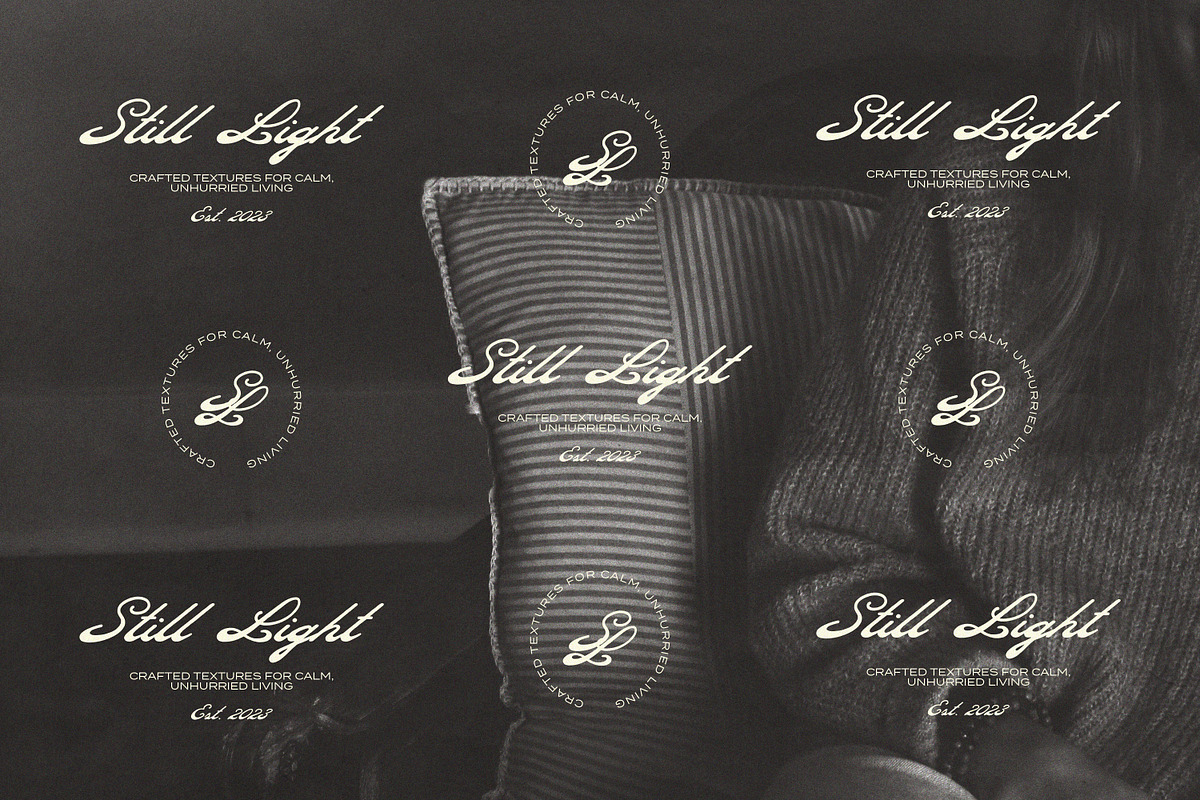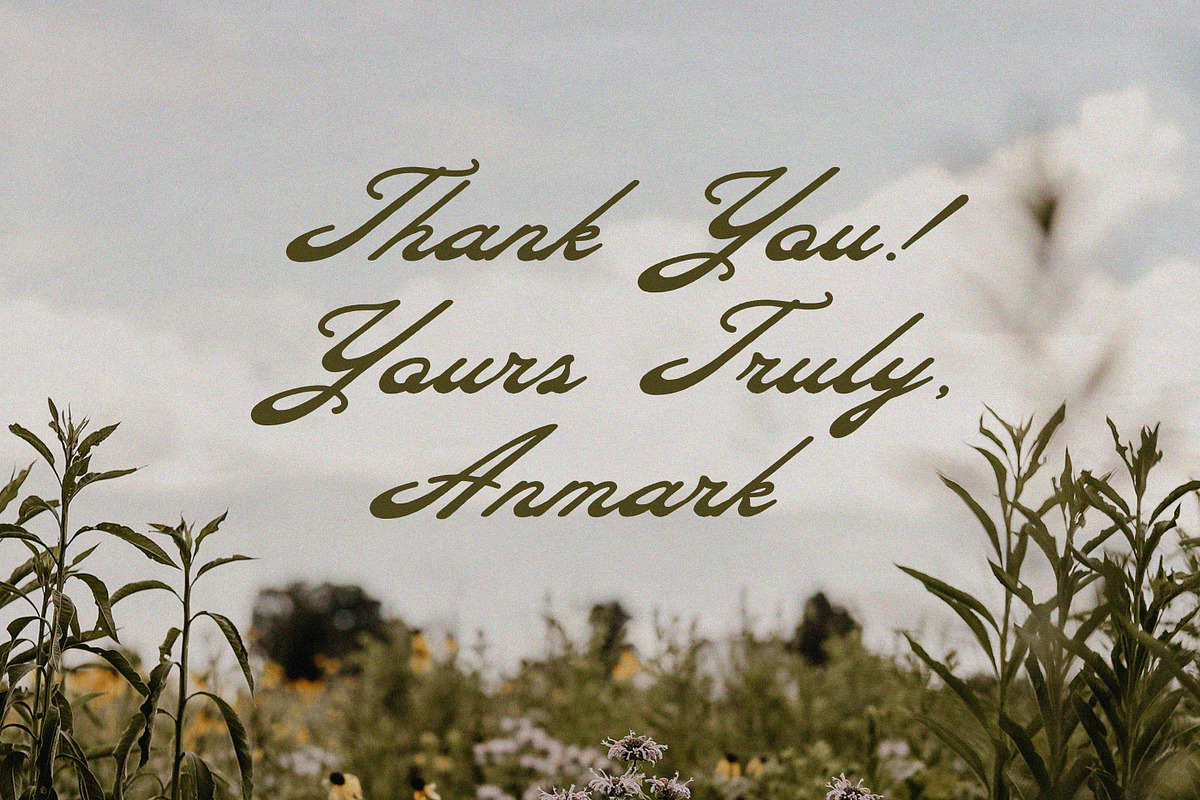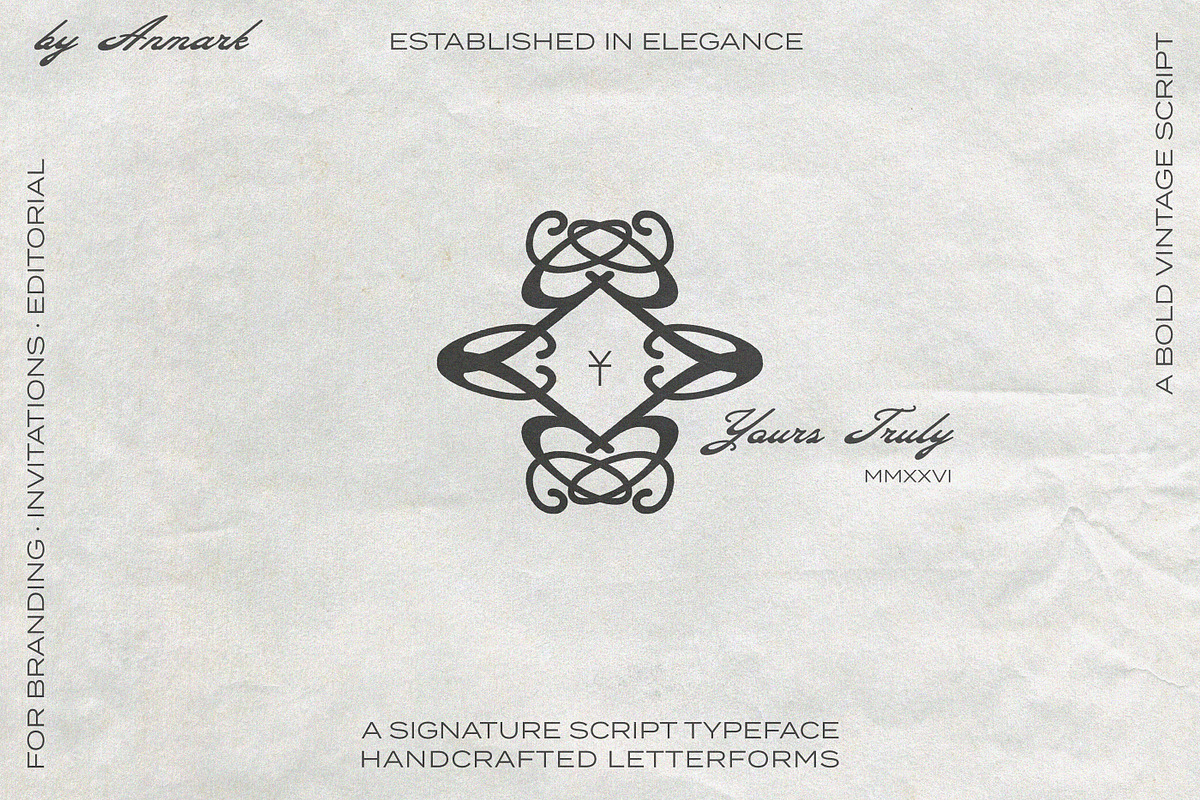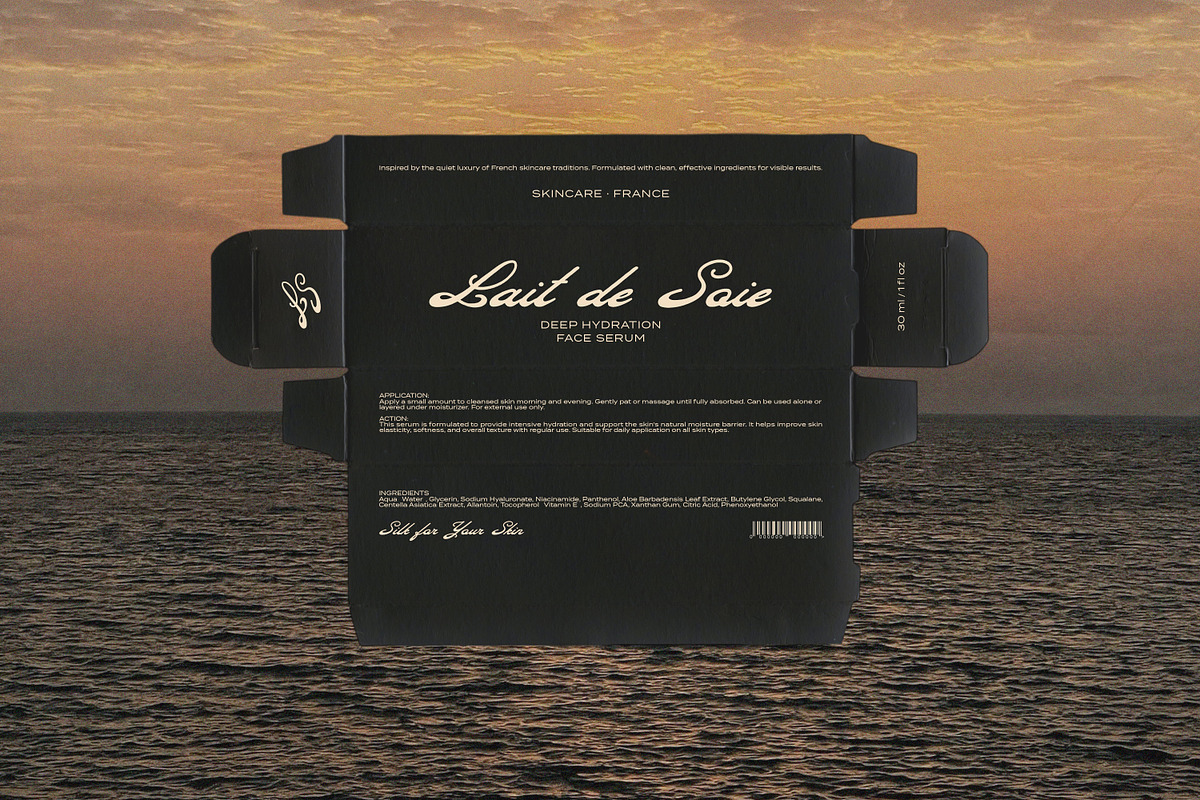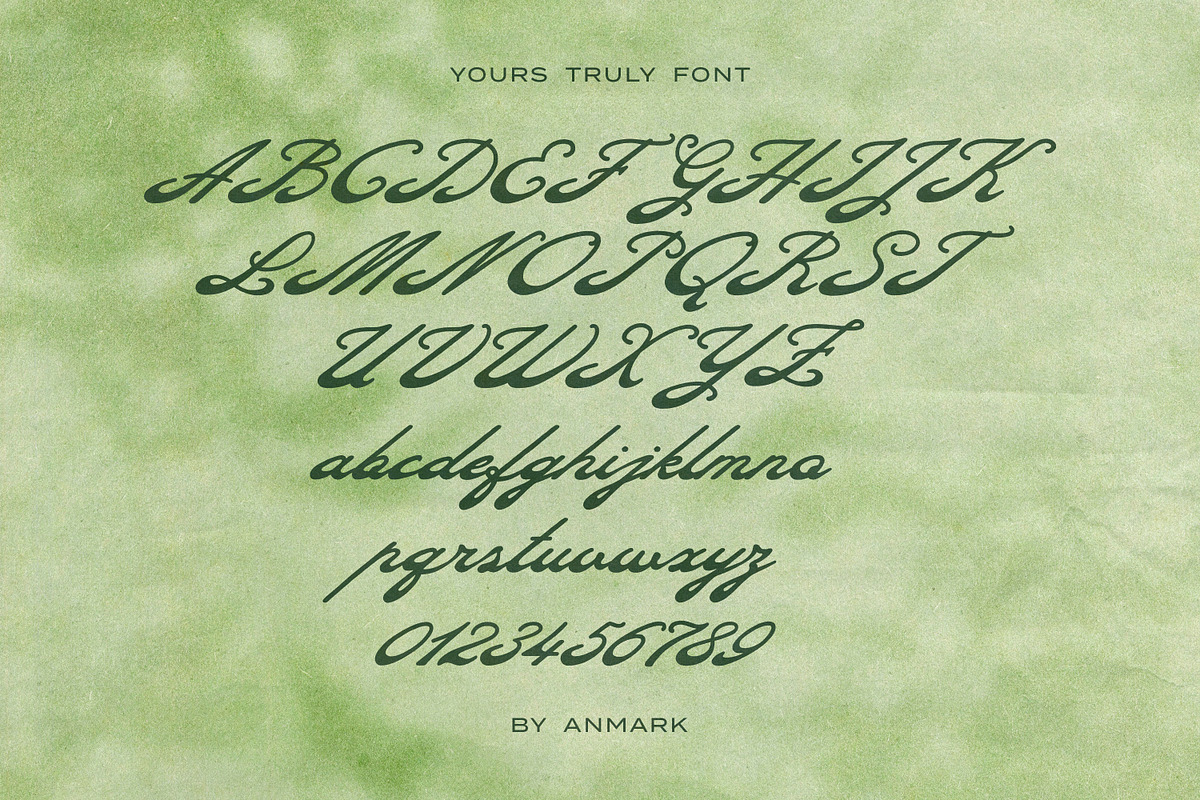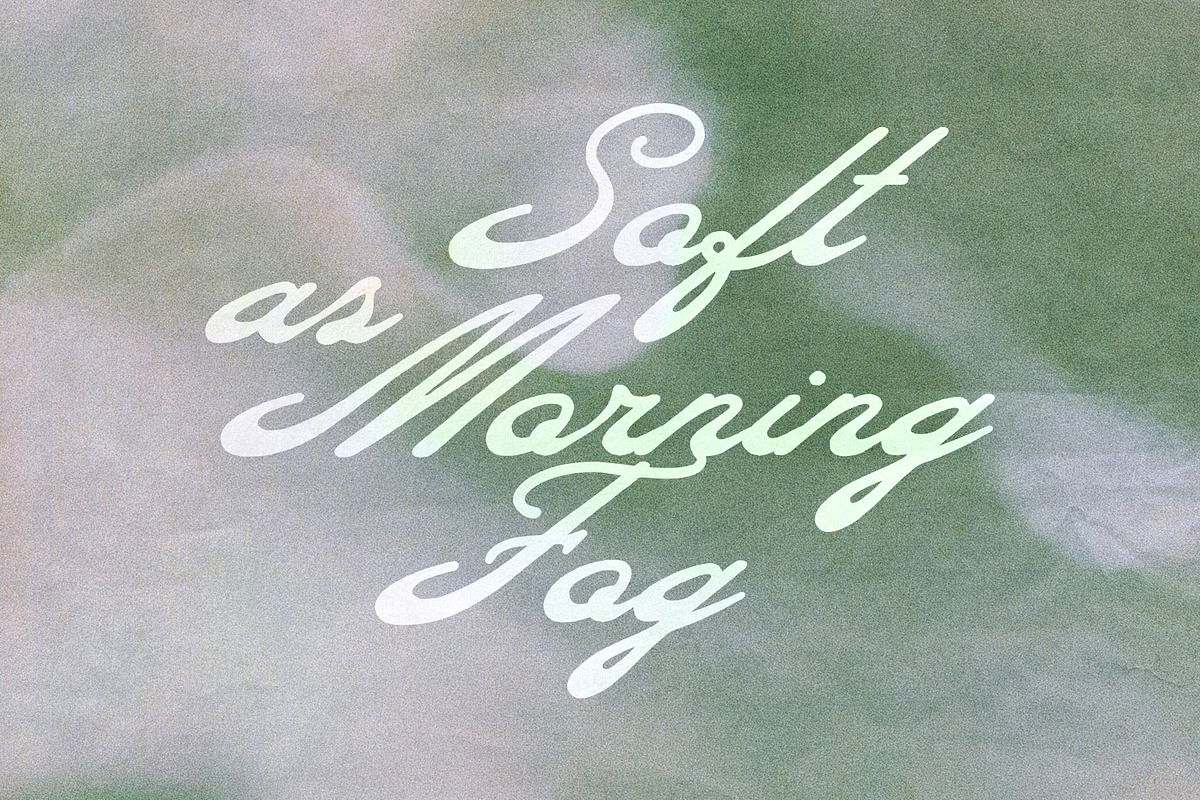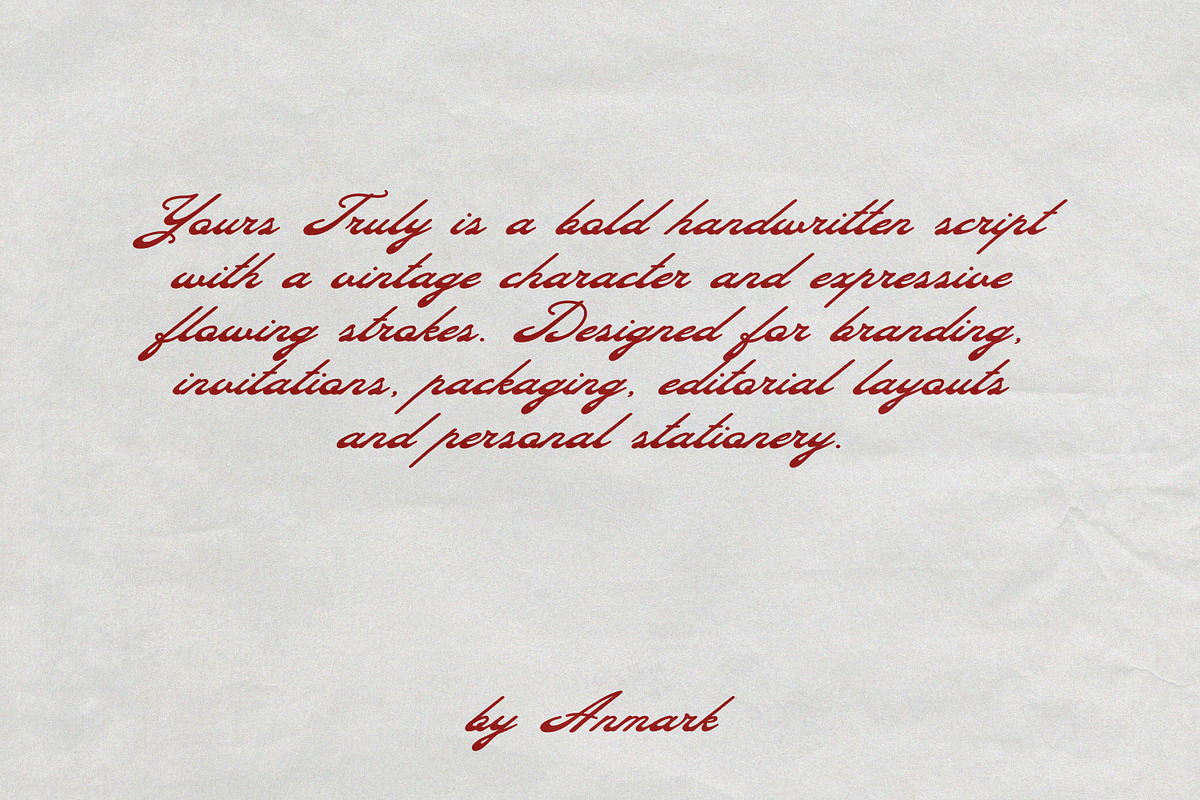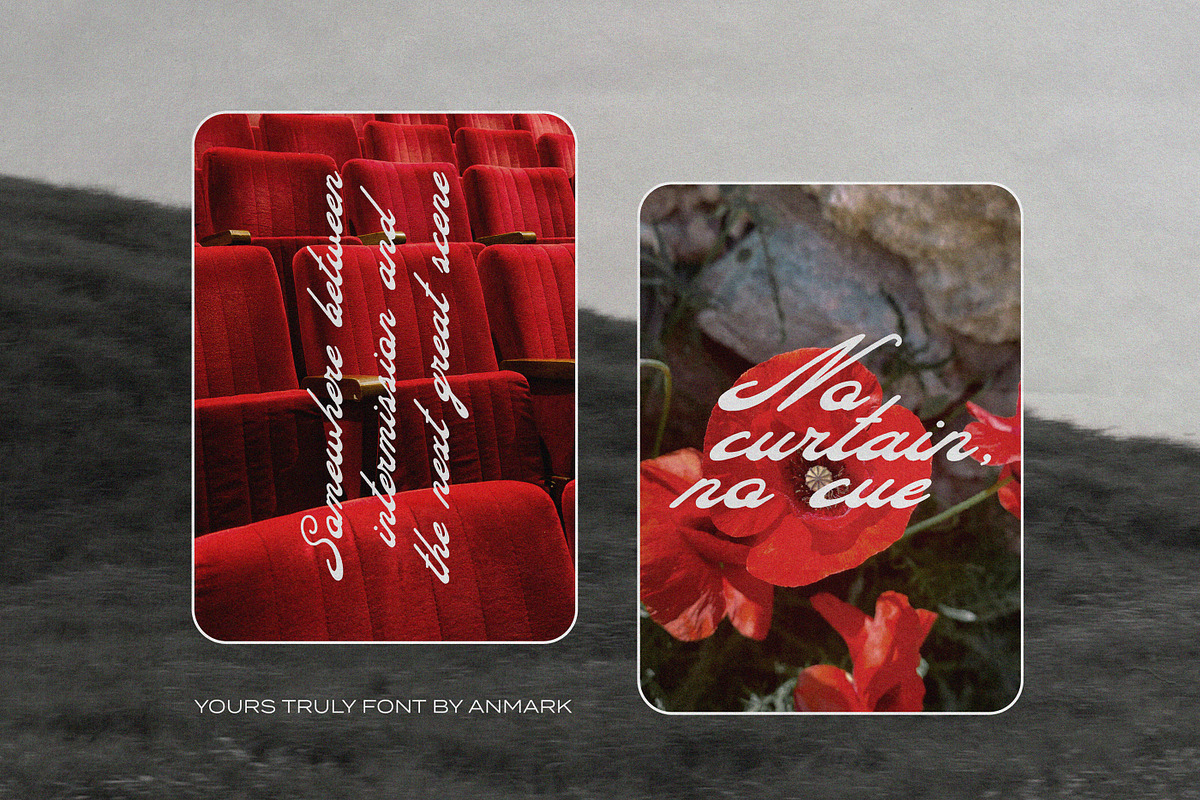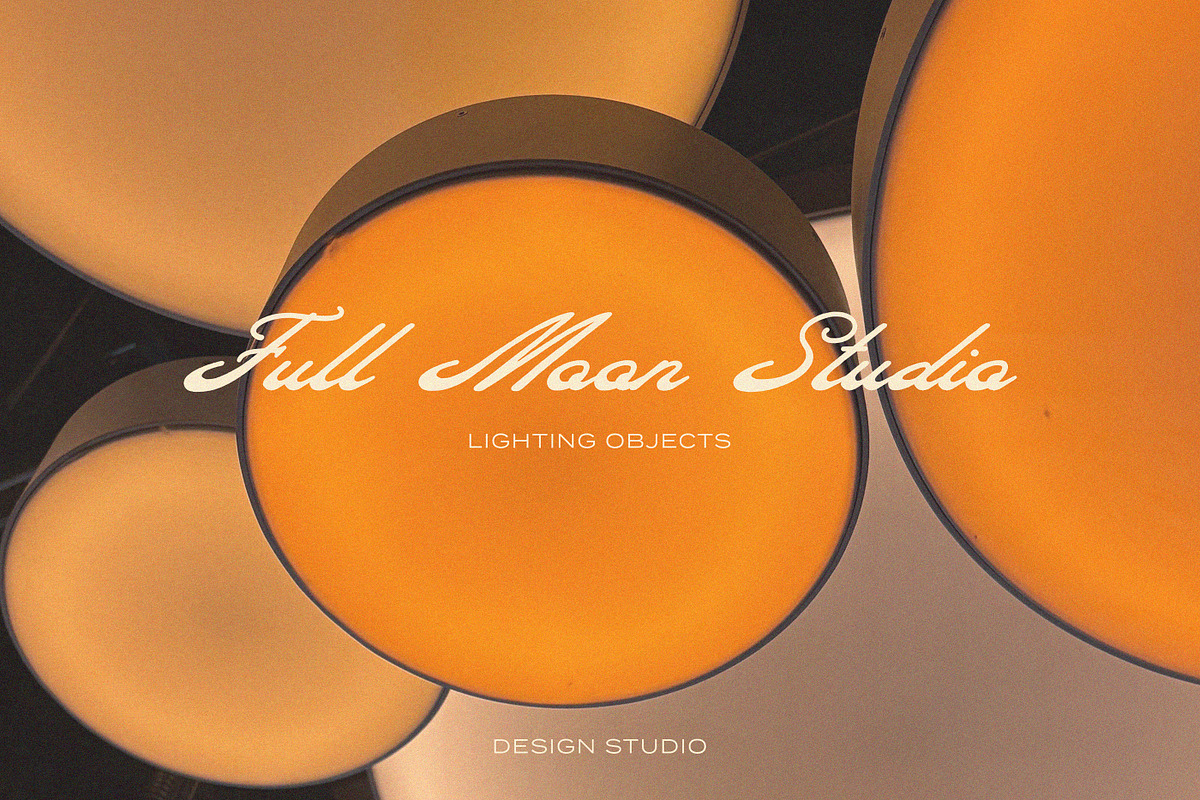
Yours Truly Bold Vintage Script Font
Yours Truly is a bold vintage script font with a distinctive handwritten character, expressive letterforms and smooth flowing strokes. Its confident rhythm combines the look of classic hand lettering with the natural movement of personal handwriting. The strong forms and extended strokes give the typeface a refined retro character while keeping it expressive and highly visible.
Yours Truly includes multilingual support for Latin based languages, making it suitable for projects that require extended Latin characters and international typography.
Designed for branding, logo design, packaging, invitations, wedding stationery, editorial design, posters, greeting cards, labels, apparel, social media graphics and advertising. The bold handwritten style works particularly well for fashion branding, beauty products, vintage inspired packaging, lifestyle identities, stationery and display typography.
Yours Truly is a versatile vintage script font, handwritten font, calligraphy font and branding font for projects that need a strong personal signature and classic character.